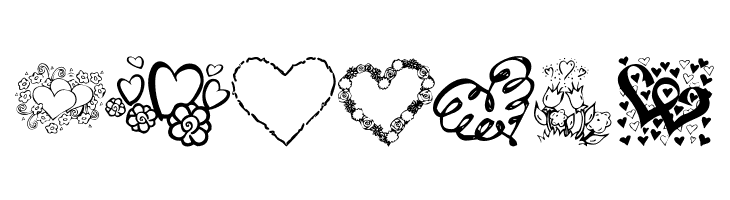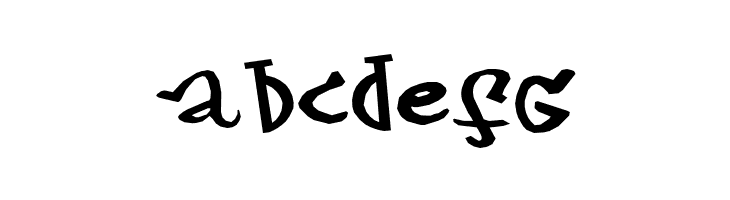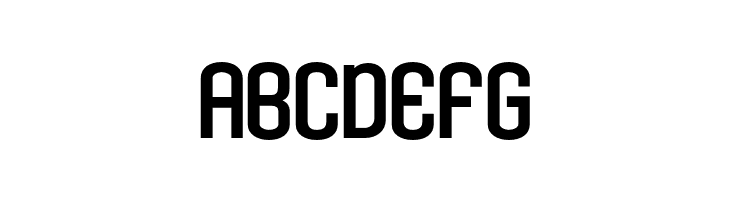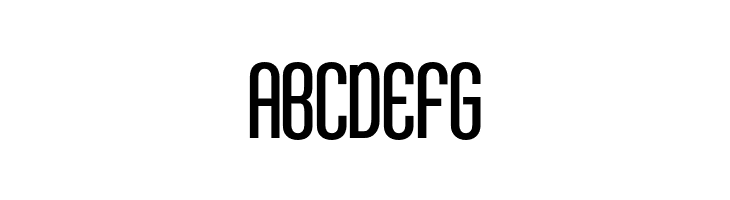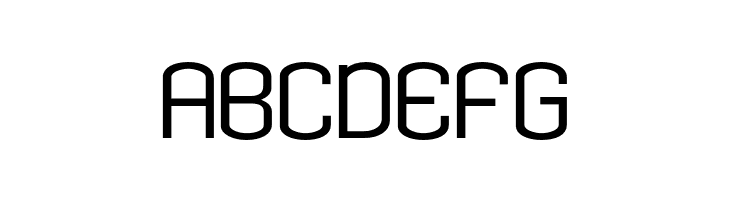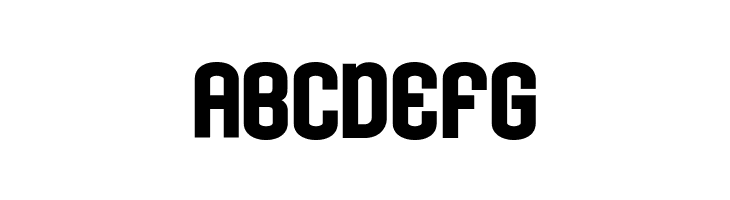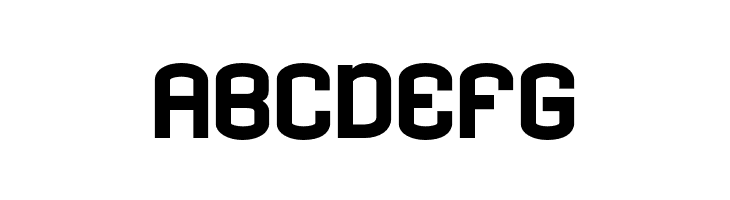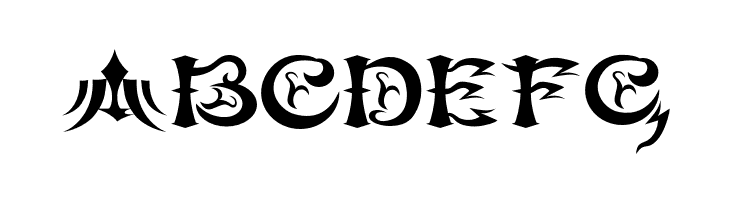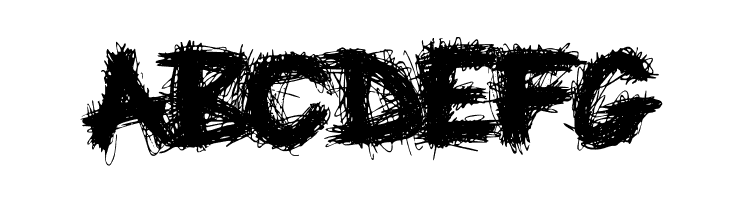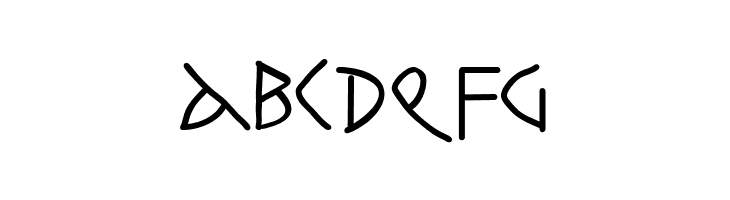
A bold, geometric font with high contrast and tight spacing, ideal for impactful headlines.
A bold, condensed font with a modern and sleek design.
A bold, condensed font with a modern and impactful design.
A tall, condensed font with a modern and sleek appearance.
A tall, condensed font with geometric lines and a modern aesthetic.
A bold, geometric, and modern font with a strong presence.
A bold, geometric font with rounded edges and a modern style.
A bold, geometric font with a modern and balanced design.
A bold, geometric font with a modern and clean aesthetic.
A geometric, modern font with clean lines and rounded edges.
A modern, geometric font with clean lines and rounded edges.
A modern, geometric font with clean lines and uniform stroke width.
A modern, geometric font with clean lines and a structured appearance.
A bold, geometric font with high contrast and a modern aesthetic.
A bold, geometric font with uniform strokes and tight spacing, ideal for headlines.
A bold, modern font with a geometric and smooth design.
A bold, modern, and geometric font with a condensed structure.
A bold, chaotic font with a rough, hand-drawn appearance.
A bold, rounded font with a playful, hand-drawn style.
A playful and whimsical font with irregular, hand-drawn letterforms.
A bold, classic serif font with strong, well-defined characters.
A classic serif font with elegant, thin strokes and refined appearance.
A classic serif font with elegant strokes and balanced proportions.
A decorative, mosaic-style font with a playful and artistic design.
A bold, decorative font with intricate details and sharp edges.
A decorative font with heart-themed designs and floral motifs, perfect for romantic projects.
A decorative font with heart and floral motifs, ideal for romantic designs.
A whimsical font with cartoon-style animal illustrations.
A decorative font resembling bamboo sticks with a three-dimensional effect.
A bamboo-inspired decorative font with textured, organic strokes.
A playful, Halloween-themed decorative font with cartoonish icons.
A decorative Halloween-themed icon font with playful and spooky illustrations.
A decorative Halloween-themed font with intricate and playful icons.